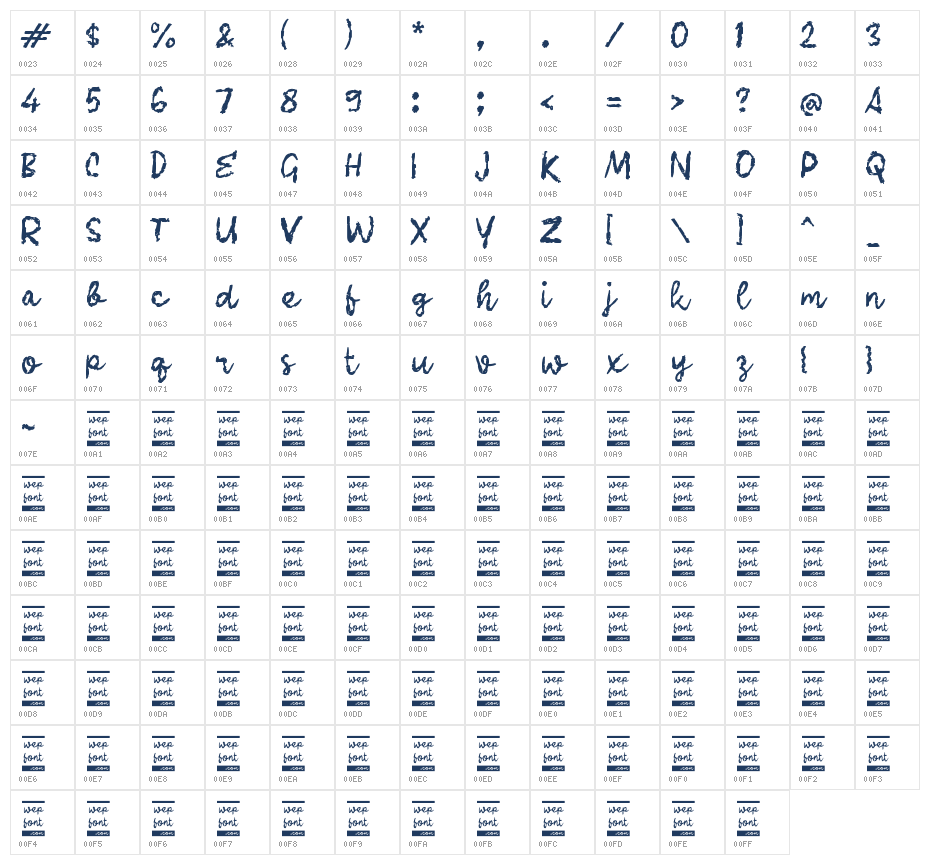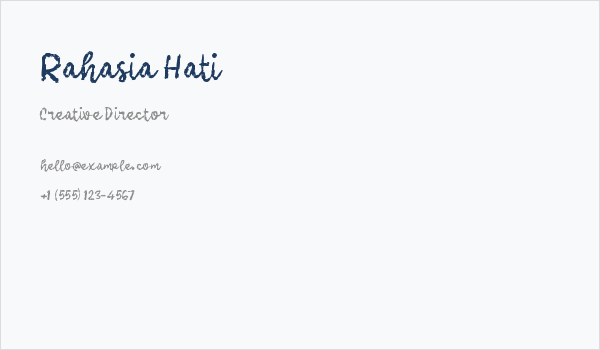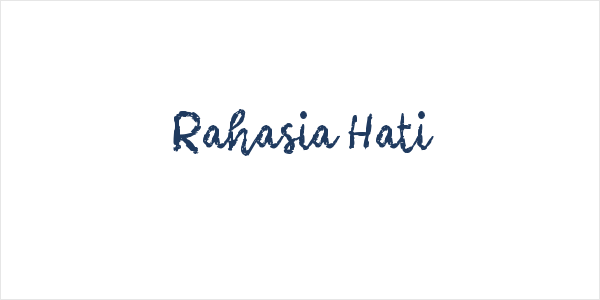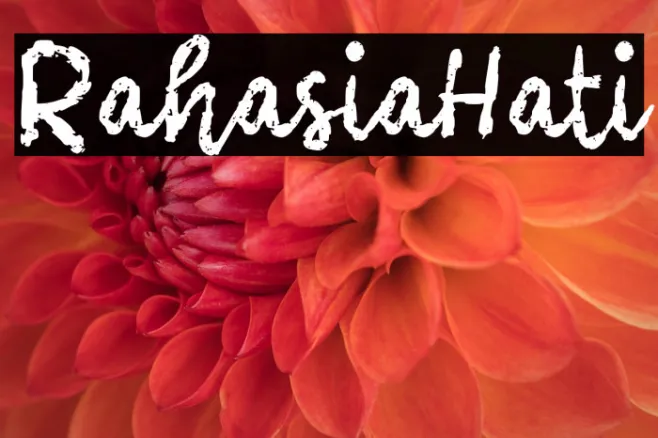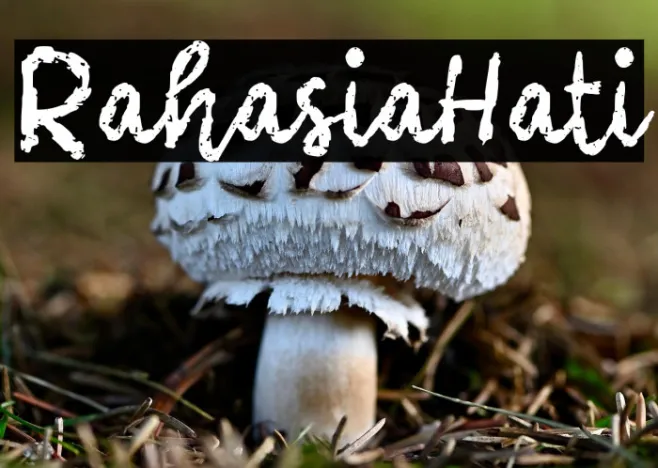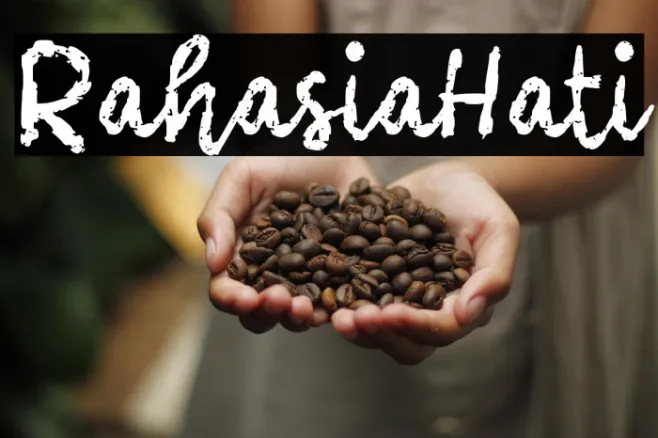
Rahasia Hati Font
Rahasia Hati Description
A distressed, handwritten script font with a rough, textured appearance, resembling brush strokes or chalk writing.
| Overall Style | Casual, Artistic, Handcrafted |
| Use Case | Headlines, Logos, Creative projects, Invitations |